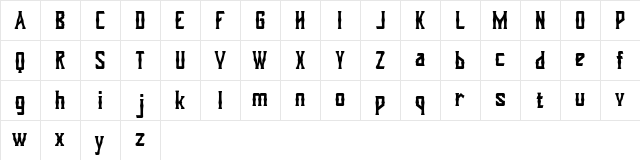
Dohong Kaliba Free Version Regular
| Foundry | Collabro |
| Designer | Collabro |
Design Context for Dohong Kaliba Free Version Typeface
Dohong Kaliba Free Version offers clean, dependable letterforms without strong stylistic allegiance, making it a practical choice for designers who need flexibility.